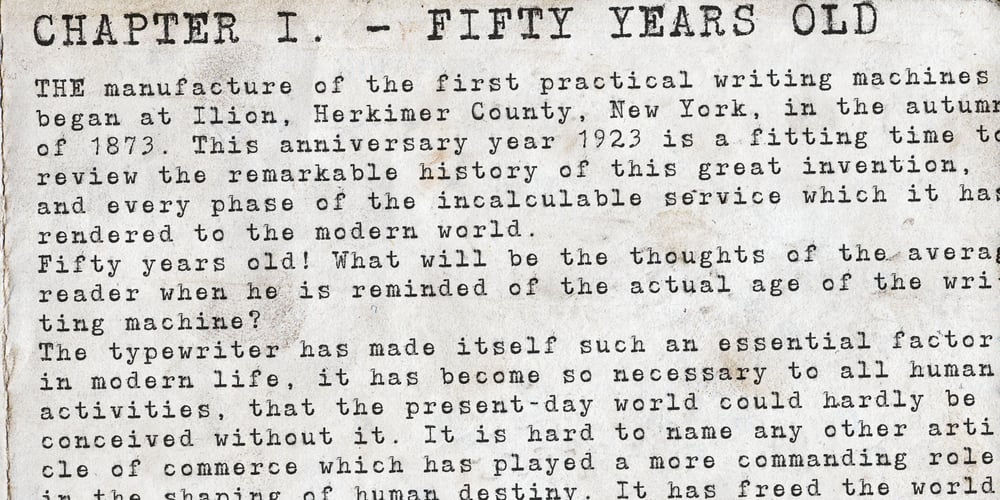
Typewriter DirtY
Typewriter DirtY font
Typewriter DirtY Font Family was designed by Matthias Luh and published by Matthias Luh. Typewriter DirtY contains 1 styles and family package options. Typewriter DirtY is related to the Typewriter BasiX and Typewriter Revo fonts. While Revo has a very clean and simple outline, BasiX is a bit washed out and looks worn. DirtY goes a step further and has a very dirty, worn, fuzzy, grungy vintage look – even more so than BasiX. Typewriter DirtY is especially suitable for headlines, logos, covers, slogans and much more. BasiX and Revo are recommended for longer texts. Although Typewriter DirtY looks good even in small font size, it is a bit more complex to render because of its detailed outlines.Typewriter Revo, BasiX and Dirty are monospaced typewriter fonts, which are matched to each other. They have the same dimensions and generally somewhat similar contours. Therefore, they can be perfectly mixed and matched with each other.